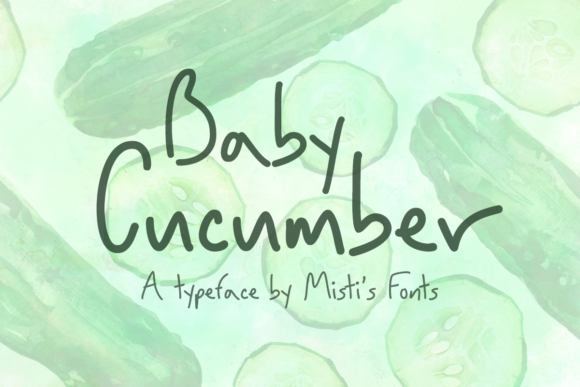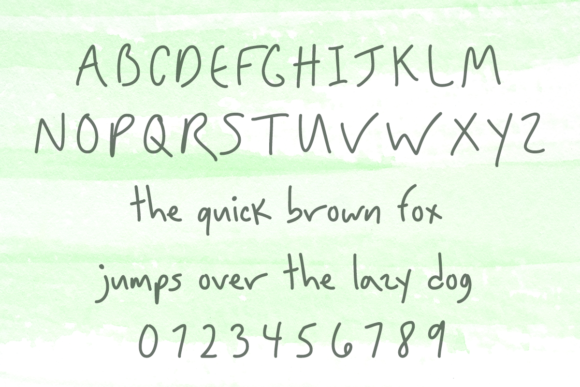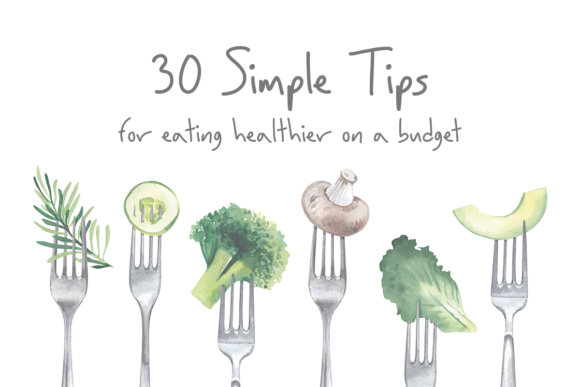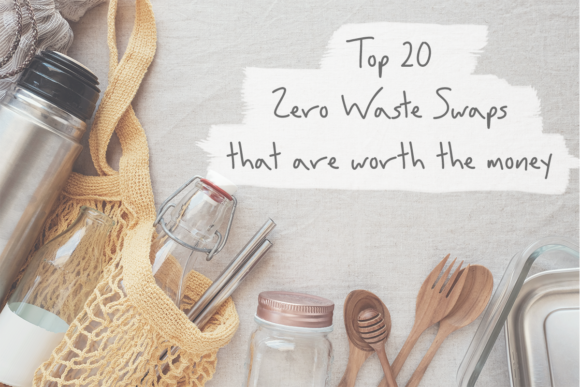
About Baby Cucumber Font
Baby Cucumber is a charming and playful handwritten font that brings a delightful and whimsical touch to your design projects. With its quirky and casual style, this font is a fantastic choice for a variety of creative applications.
The font’s unique and fun appearance makes it a great option for adding a touch of personality to your blog post graphics. Whether you’re creating featured images, headers, or social media graphics, Baby Cucumber can infuse a lighthearted and creative vibe that captures your audience’s attention.
For shop logos and product labels, Baby Cucumber’s casual charm can create a memorable and approachable brand identity. Its handwritten feel adds a sense of authenticity and warmth, making it an ideal choice for businesses or products that want to convey a friendly and relatable image.
The whimsical nature of Baby Cucumber also lends itself well to creating cute greeting cards and personalized items. Whether you’re designing birthday cards, thank you notes, or custom stationery, this font adds a playful and endearing element that resonates with recipients and makes your designs stand out.
Additionally, Baby Cucumber’s style lends itself perfectly to cartoon or comic-themed projects. If you’re working on illustrations, comic strips, or any design that requires a touch of fun and quirkiness, this font can help you achieve that desired look and feel.
The versatility of Baby Cucumber shines through in its ability to adapt to various design contexts while maintaining its distinctive character. Its relaxed and casual vibe ensures that it remains approachable and easy to read, making it suitable for both short snippets of text and longer paragraphs.
Overall, Baby Cucumber is a fantastic choice for designers seeking a quirky and casual handwritten font. Its playful charm makes it a wonderful addition to blog graphics, logos, labels, greeting cards, personalized items, and more. Embrace the whimsy of Baby Cucumber to bring a smile to your design projects and capture the essence of creativity and fun.